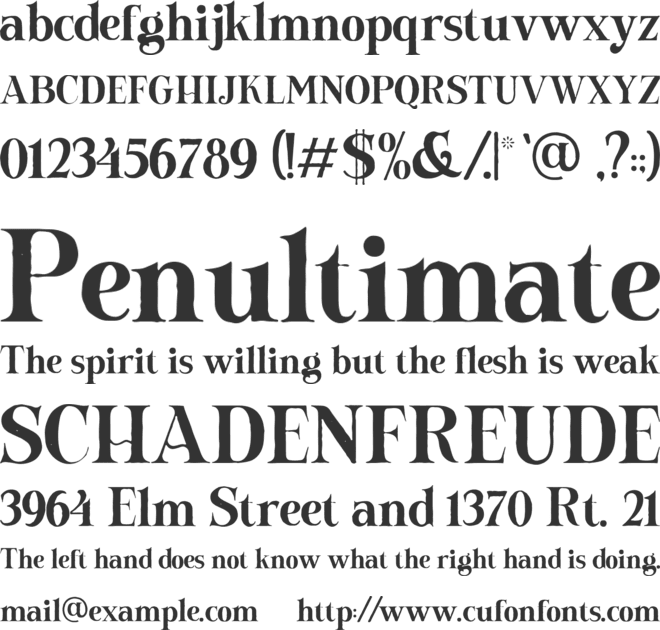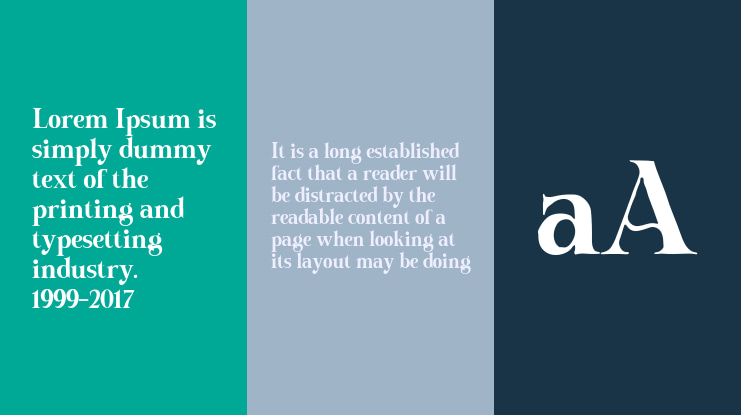
Melina Davidson Font Family
Letterhend Studio
Melina Davidson is a font duo package contain a stylish serif with organic script. This font duo is purposely made for headline, display or logotype, and signature which need a standout appearing